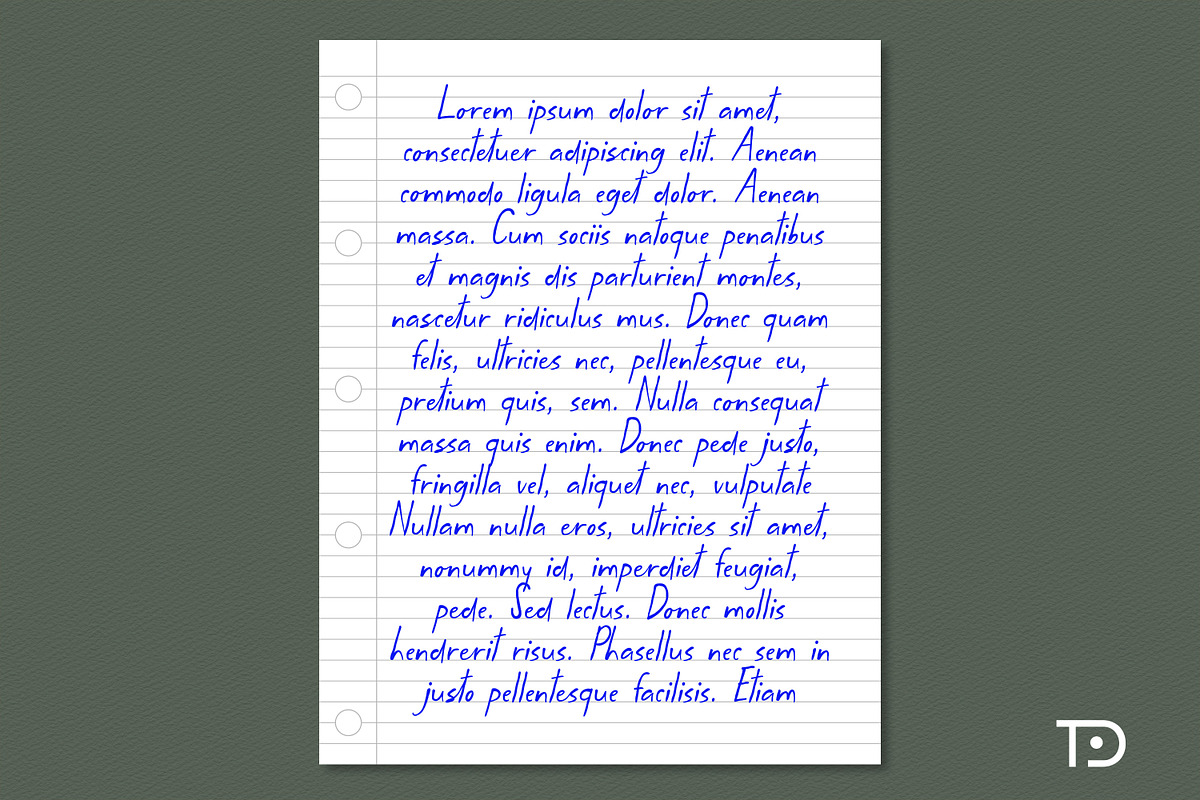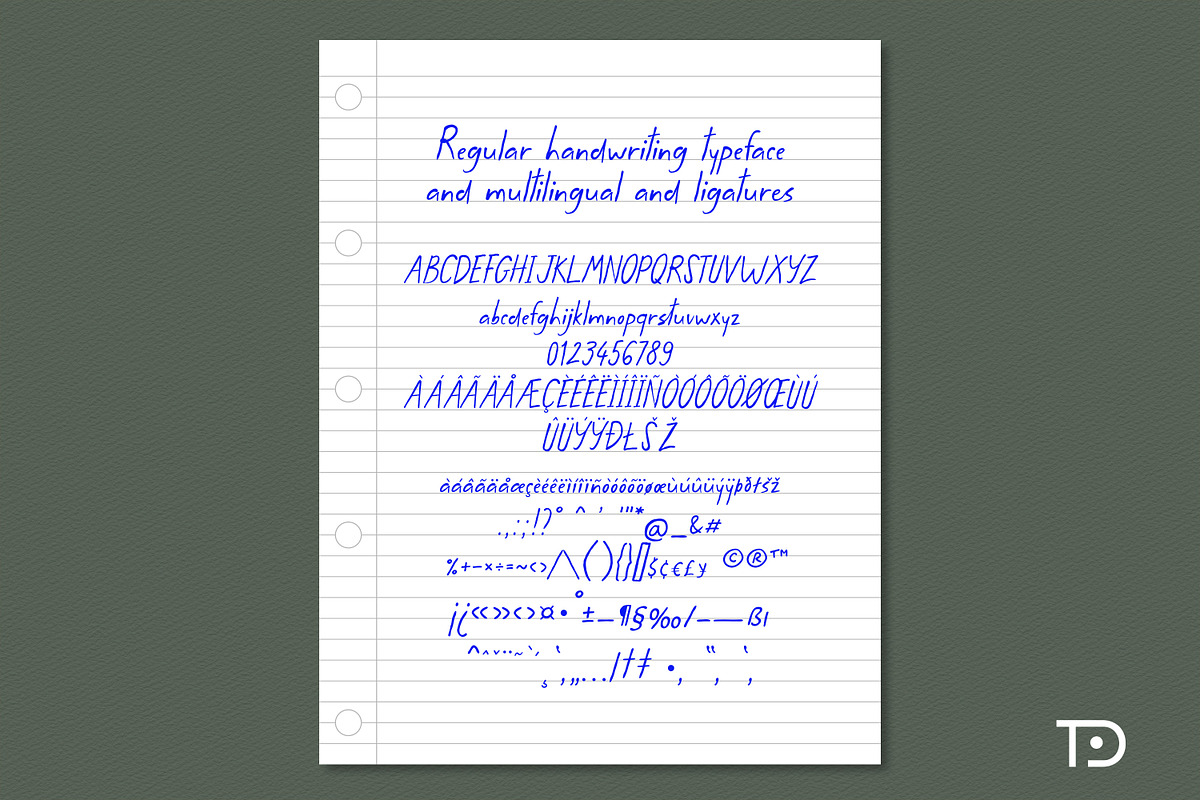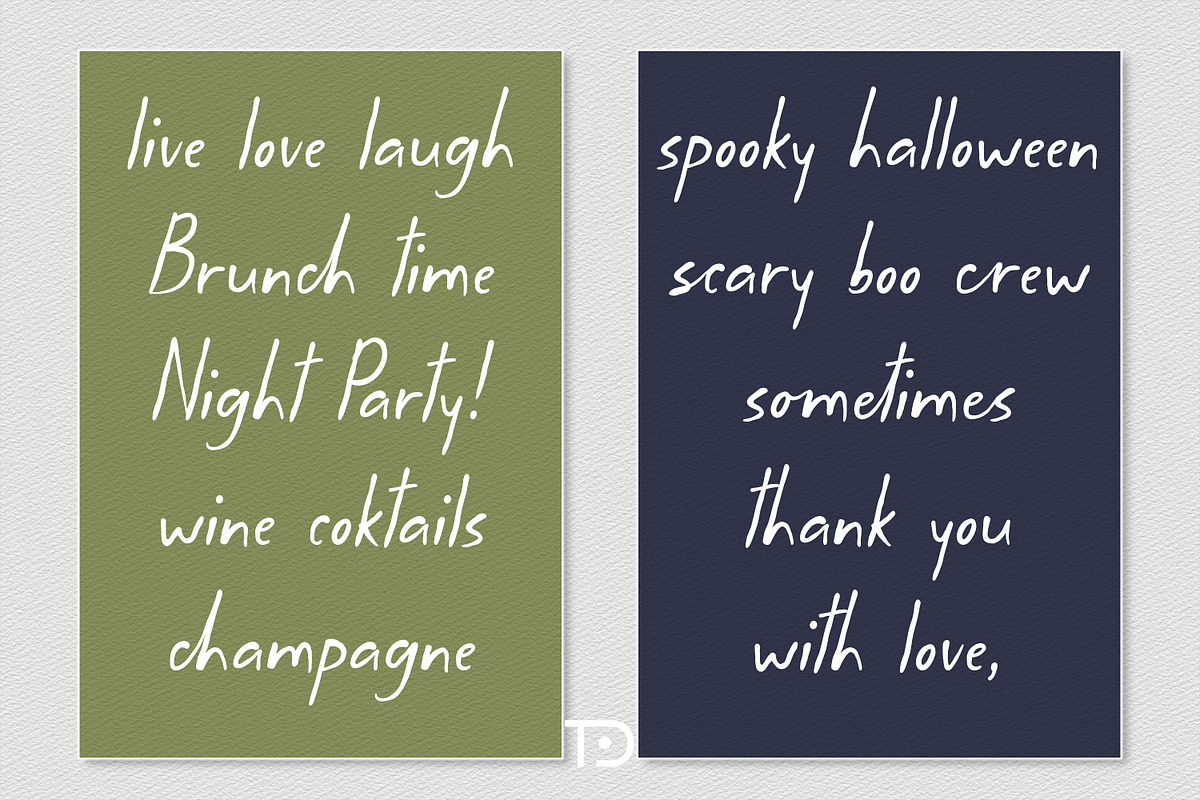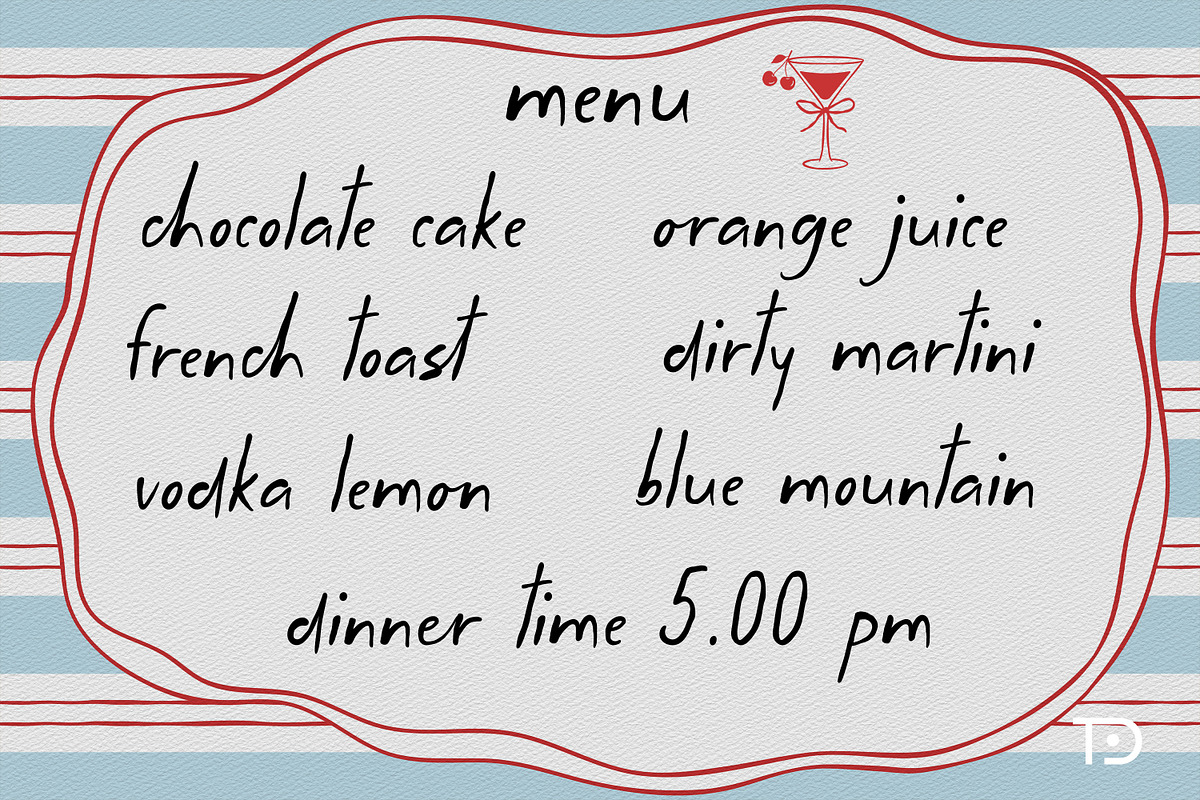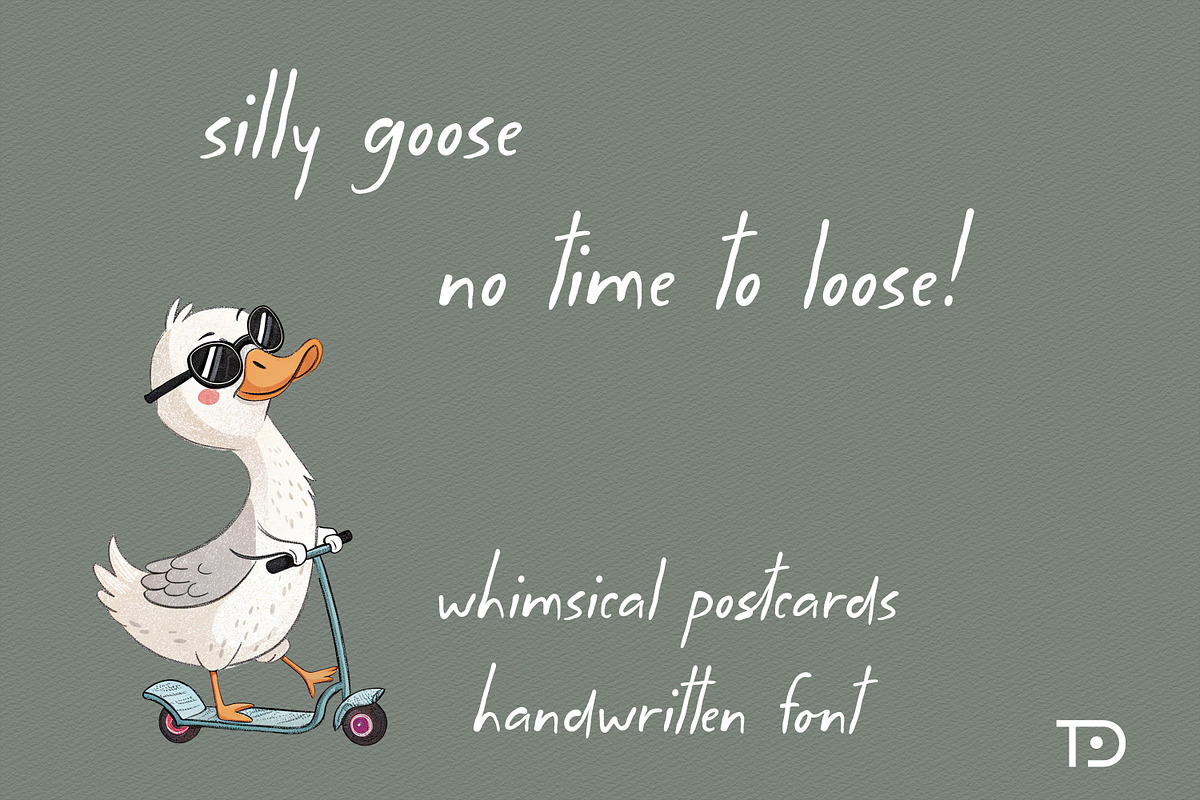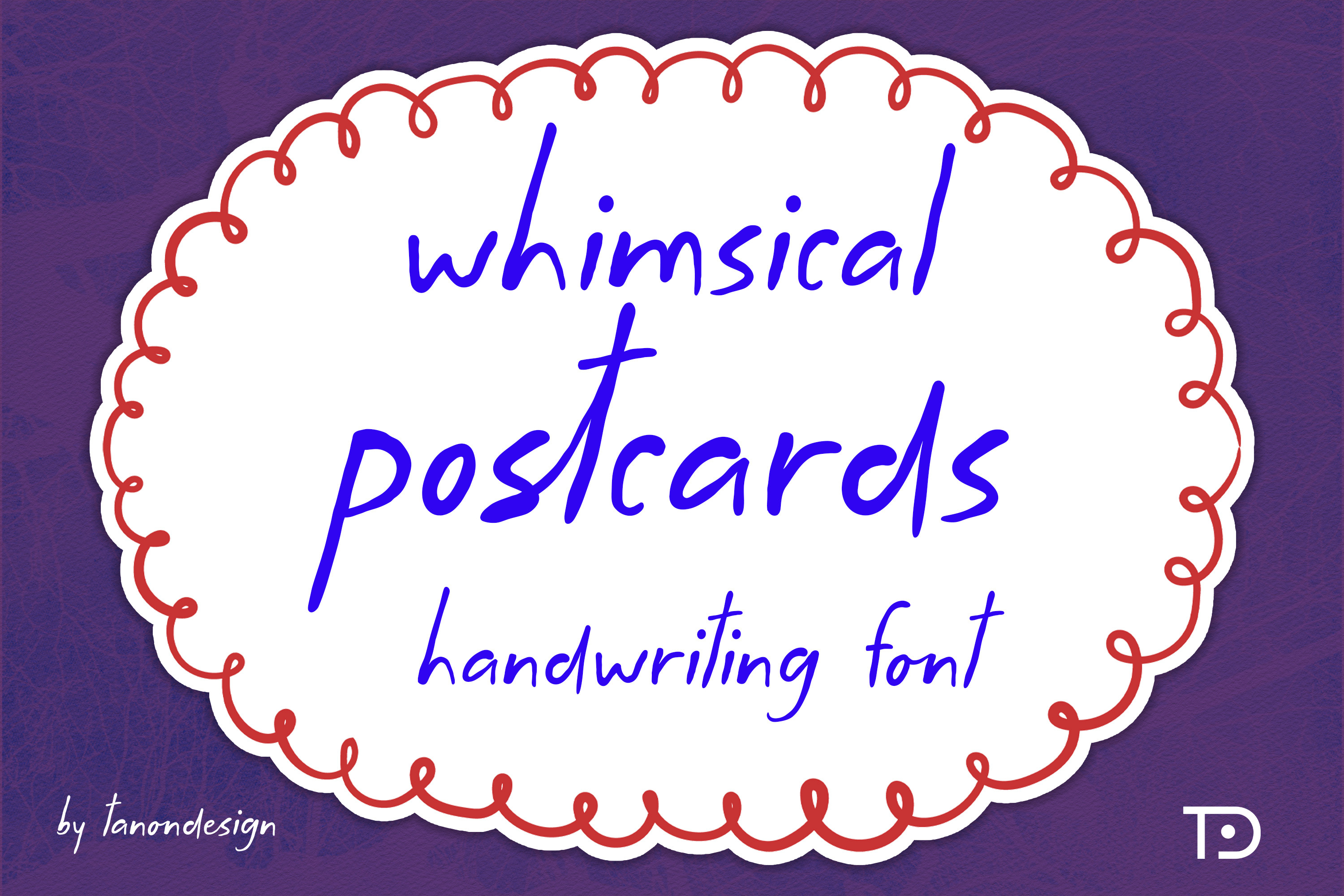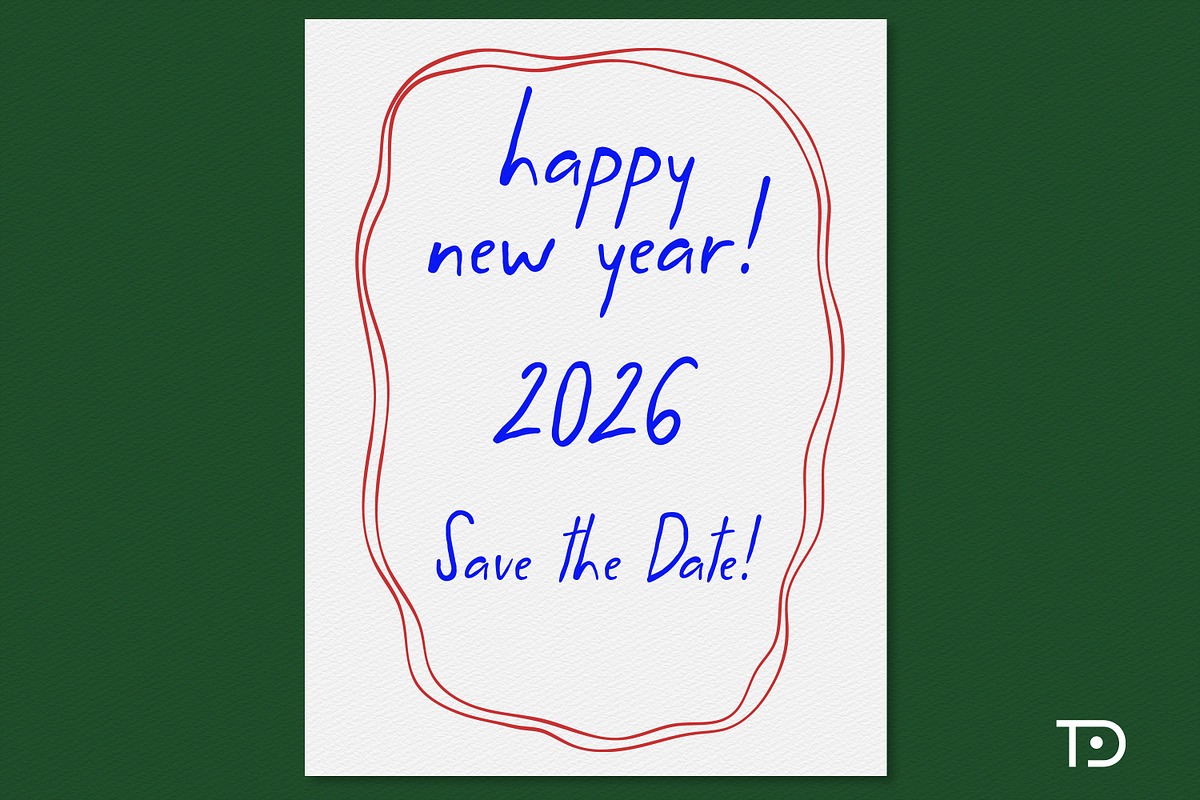
Whimsical Postcards handwritten font
Whimsical Postcards handwriting font is a fun and festive display font. It will look fantastic on all your designs including t-shirt designs, mug designs, digital designs, crafts, cards, and any projects!